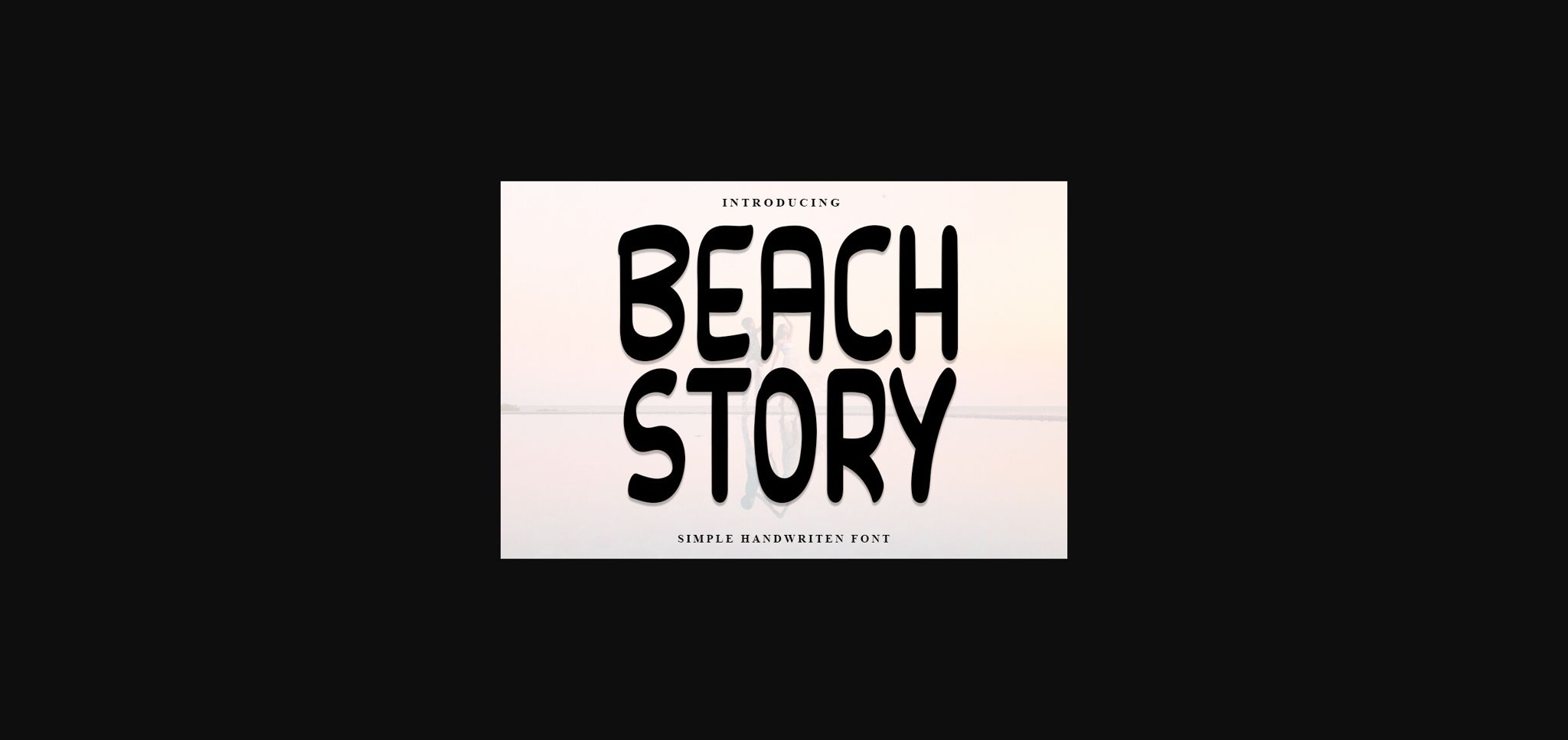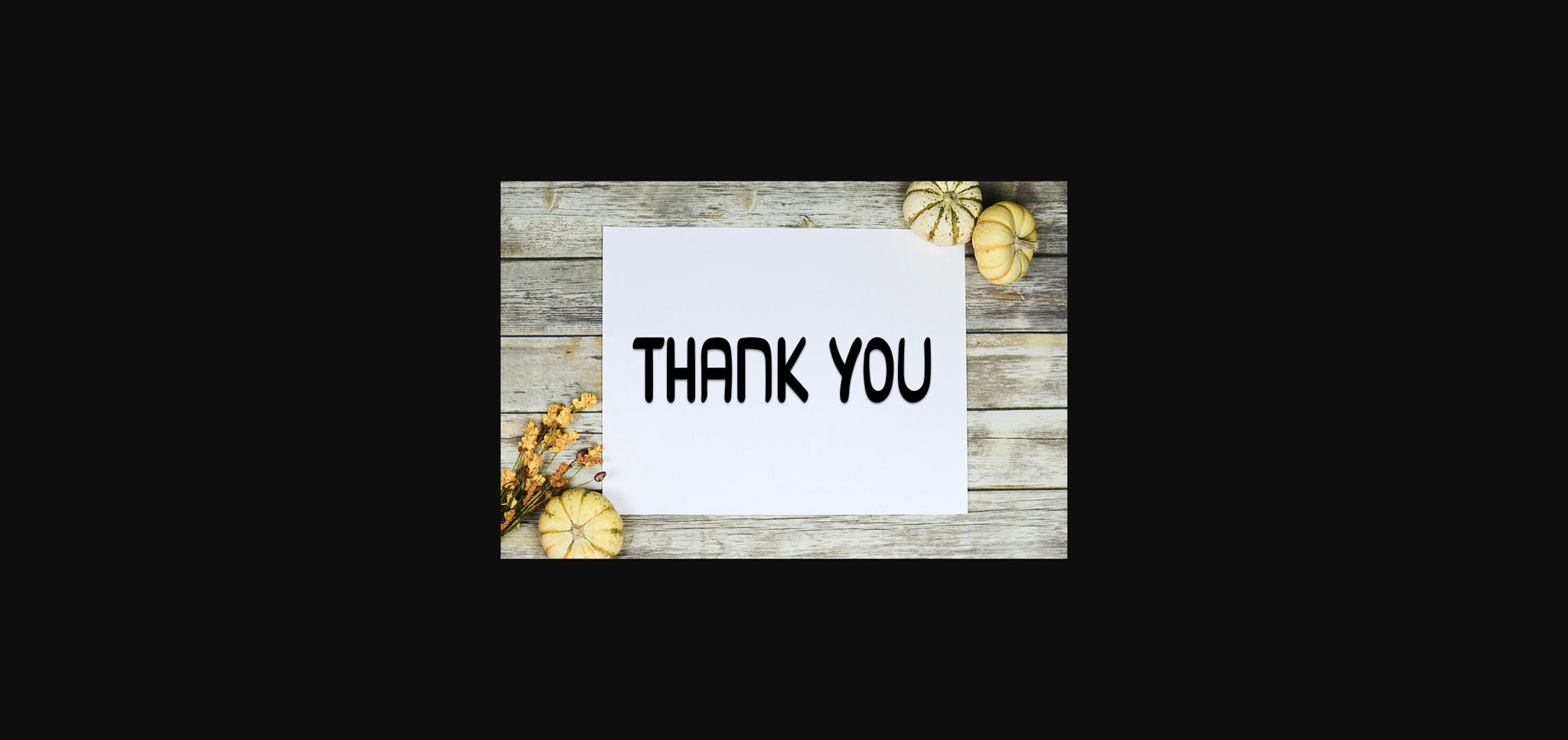
About Beach Story Font
Beach Story is a charming sans-serif font imbued with a sense of freshness and casual elegance. Its fluid strokes and organic lines evoke a laid-back vibe, making it perfect for various design projects. Whether used for branding, invitations, or social media graphics, Beach Story adds a touch of warmth and personality.